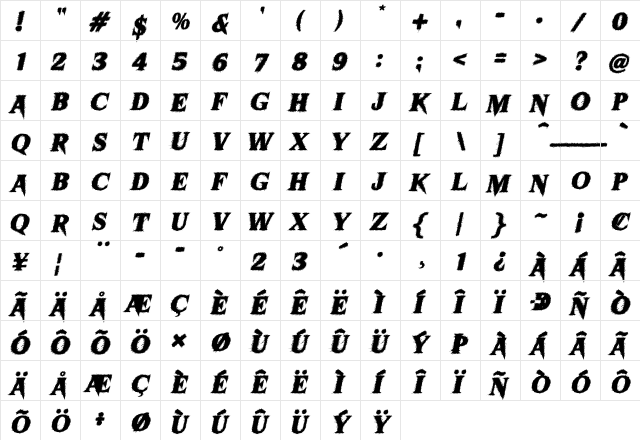
Sharkbite Italic Regular
Design Context for Sharkbite Italic Typeface
Sharkbite Italic is a composed and adaptable typeface that performs quietly and consistently across a wide range of design contexts. The dynamic lean of this cut emphasises speed and emphasis in any layout.
Pro Tip: Try Sharkbite Italic for annotation and caption copy alongside an upright companion — the contrast in angle creates a dynamic but ordered typographic system.